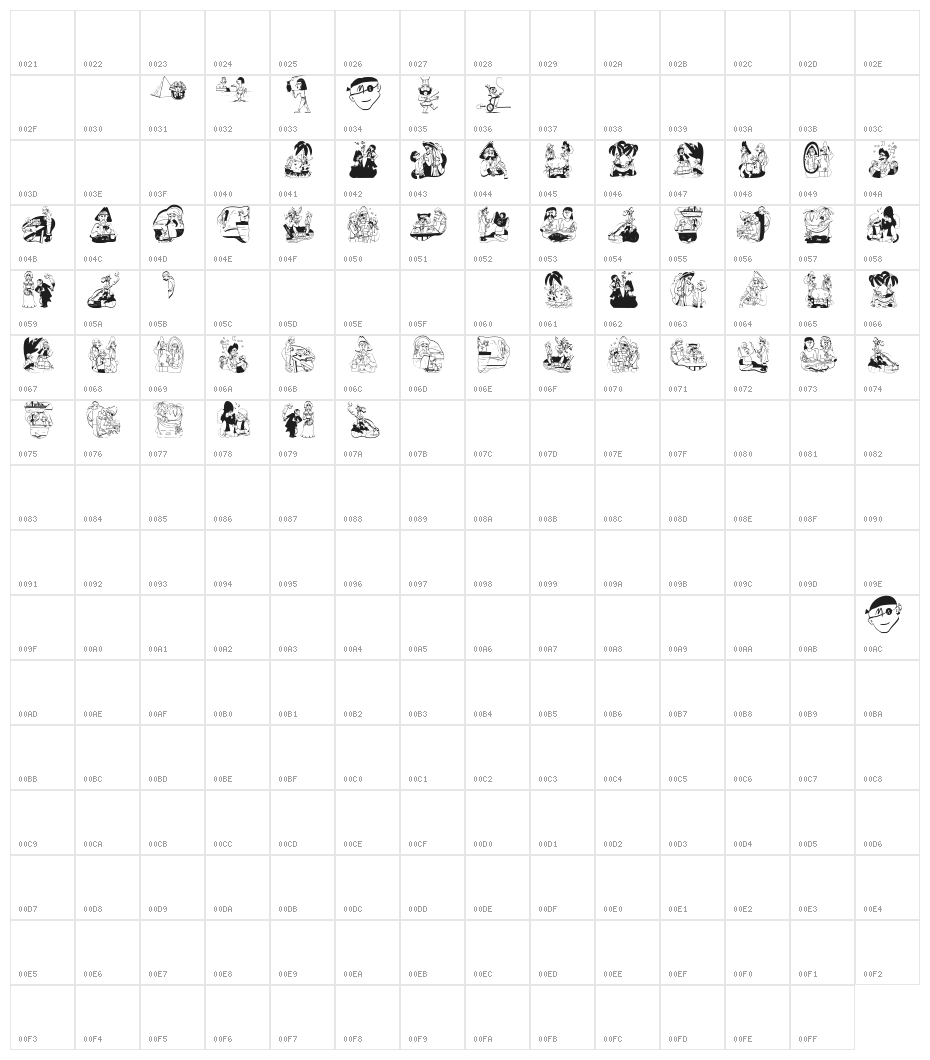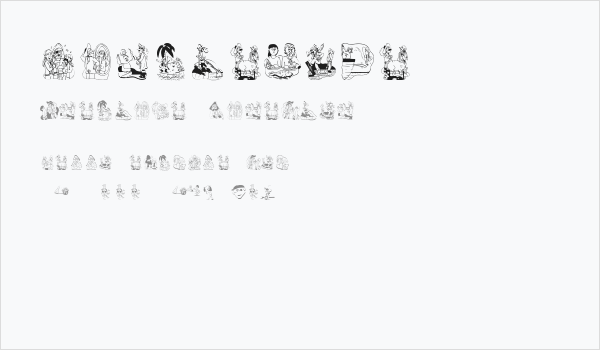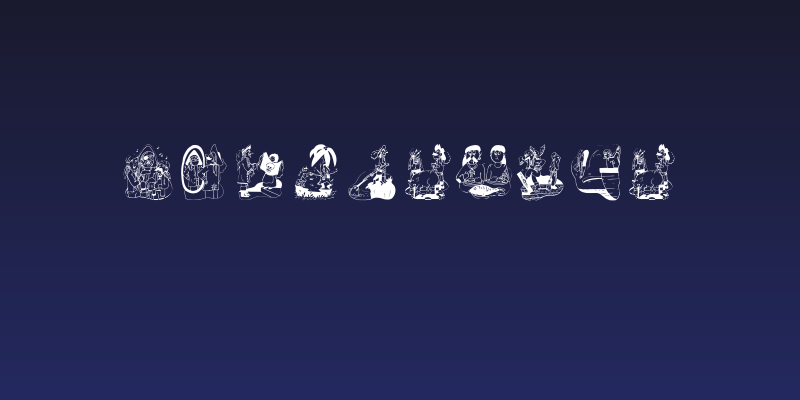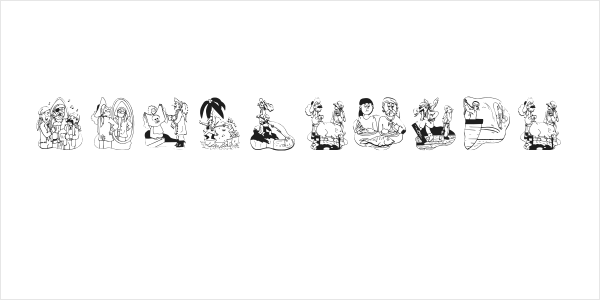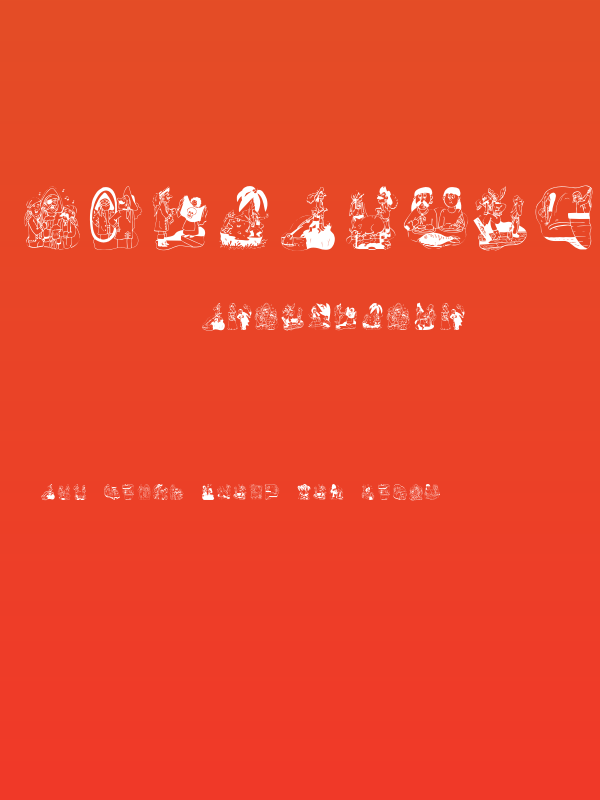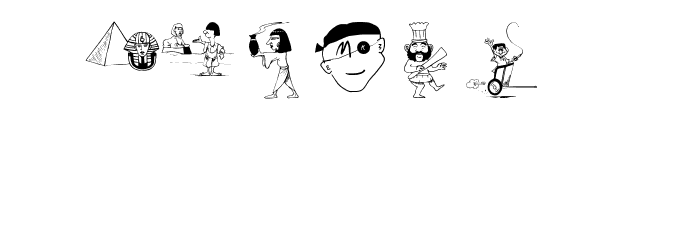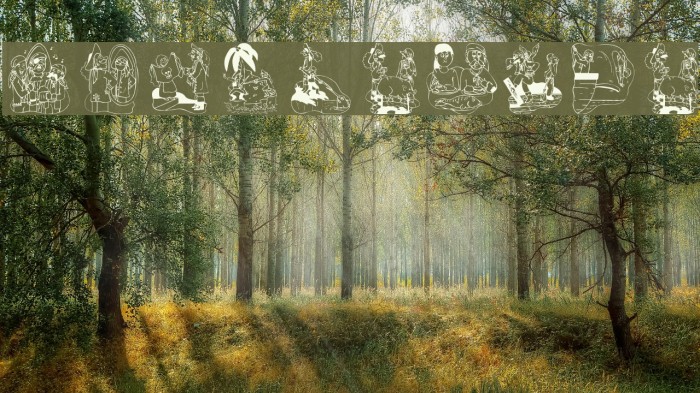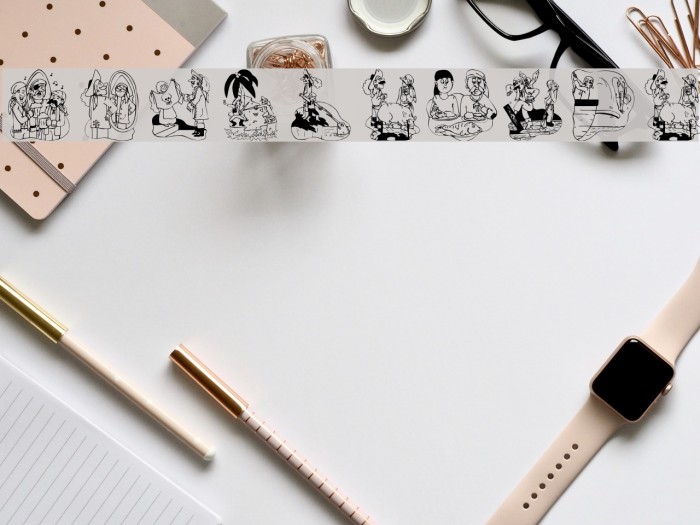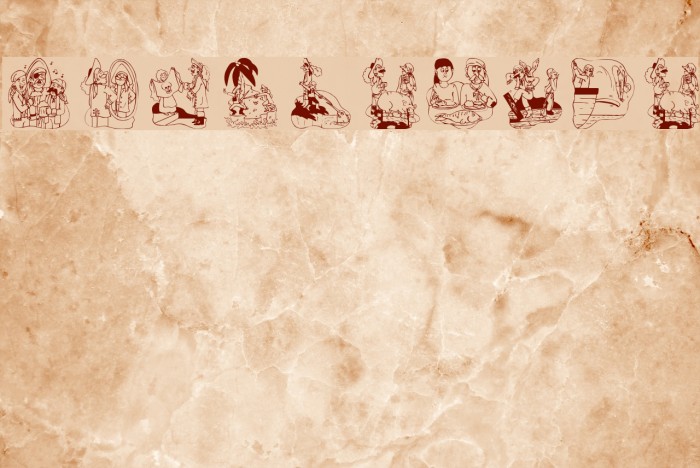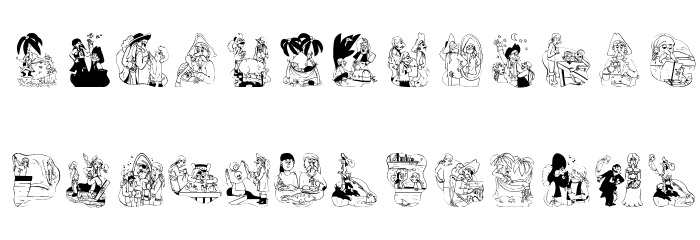
PiratesOne Font
PiratesOne Description
A highly decorative and illustrative font where each character is represented by a unique cartoon-style pirate or adventure-themed drawing, featuring playful and detailed line art with whimsical scenes and characters.
| Overall Style | Decorative, Playful, Whimsical |
| Use Case | Logos, Posters, Invitations, Themed Graphics |
| Proposed Projects | Children’s books, party invitations, themed event posters, playful branding, educational materials. |